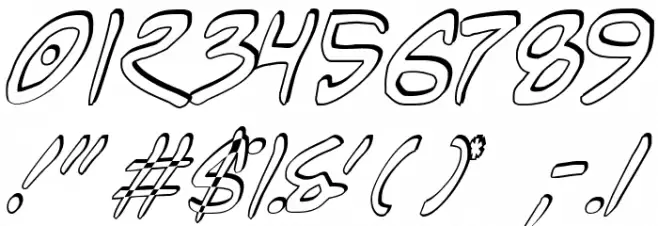
Wyld Stallyns Shadow Font
Wyld Stallyns Shadow Description
This font features a dynamic and energetic style with a distinct shadow effect that gives it a three-dimensional appearance. The letters are slightly slanted, adding a sense of motion and fluidity. The strokes are bold and consistent, with a playful yet edgy vibe. The shadowing is uniform across all characters, enhancing the overall depth and making each letter stand out. This font is particularly eye-catching and is designed to grab attention with its unique and modern aesthetic.
A bold, shadowed font with a dynamic, three-dimensional style from Uncategorized fonts.